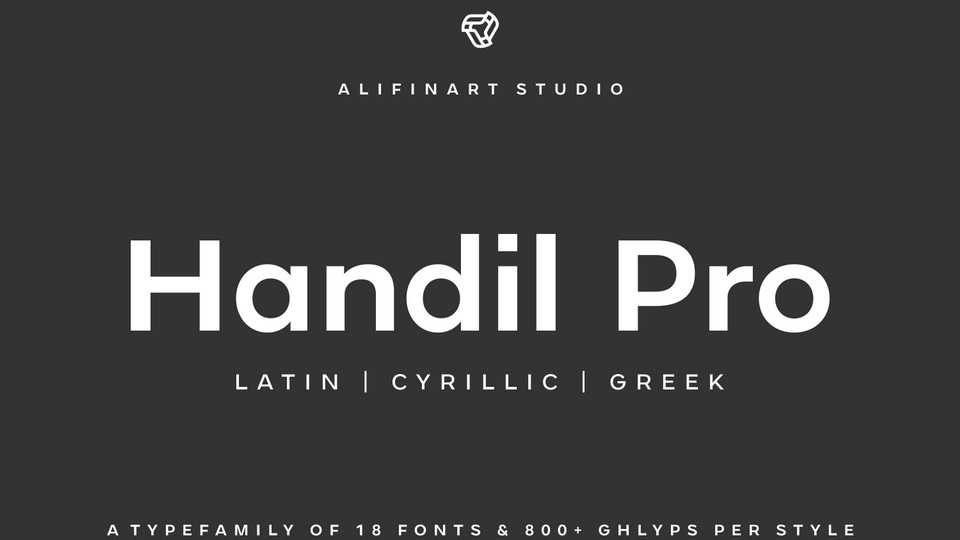
Download Handil Pro font, a geometric sans-serif typeface that serves as the perfect complement to the Mustica Pro font family. Handil Pro font boasts geometric shapes with optical adjustments and enhanced gestures.
Designer: Alifinart Studio